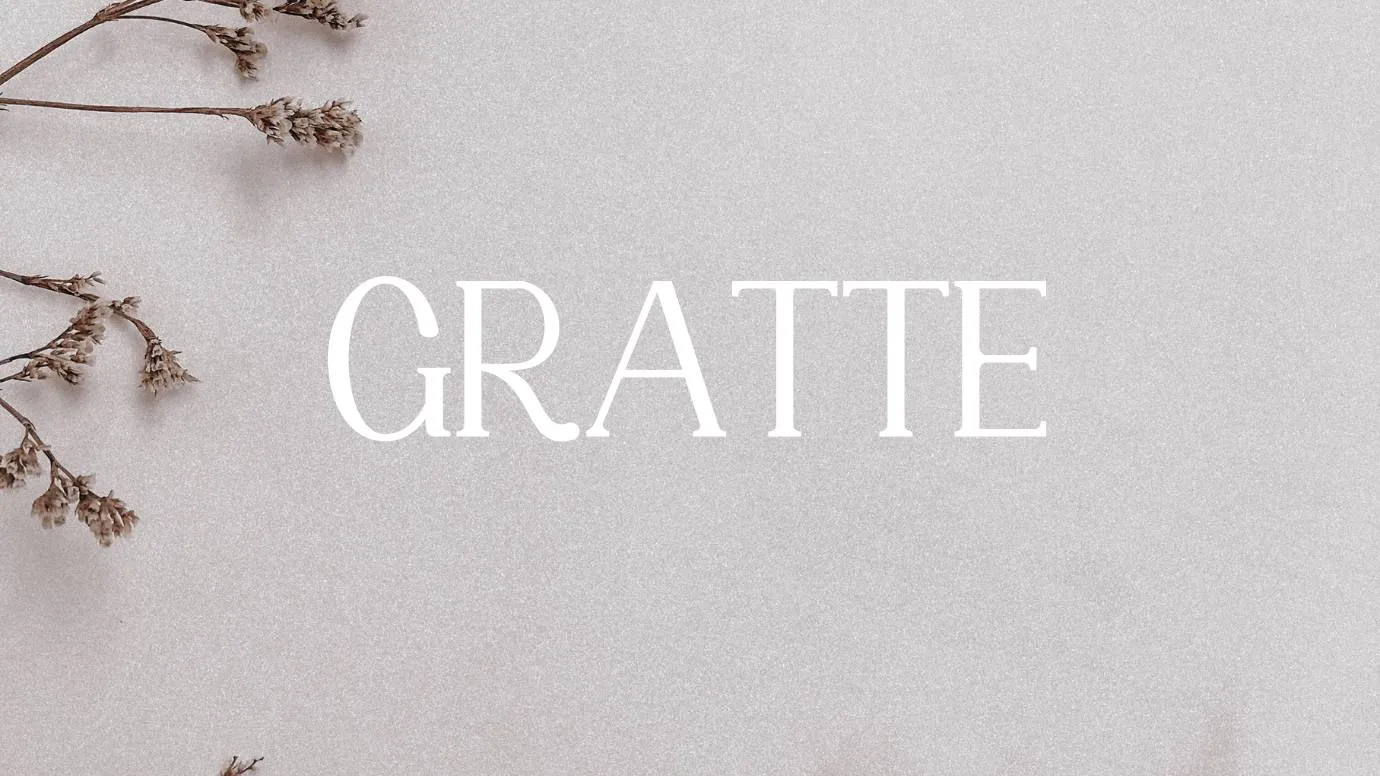
Gratte Font Family has a classic and cohesive look typeface.  This outstanding typeface was finally designed by Humaira std for the first time with stylistic alternates and astonishing glimpses.
It will make your design chic and modern that give your design stylish touch. Here, this texture introduces an online tool known as a generator tool for graphic designs. This gorgeous texture has 21 unique ligatures and stylish glimpses.
TypeSerif